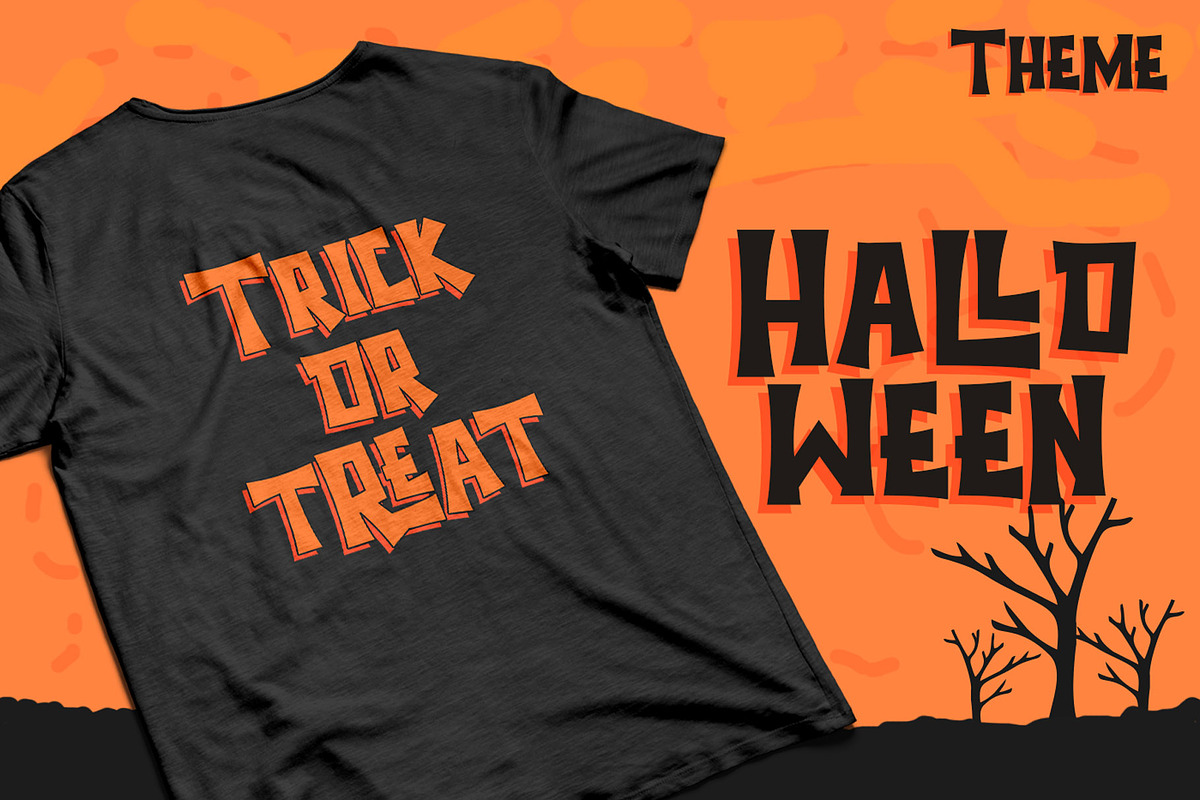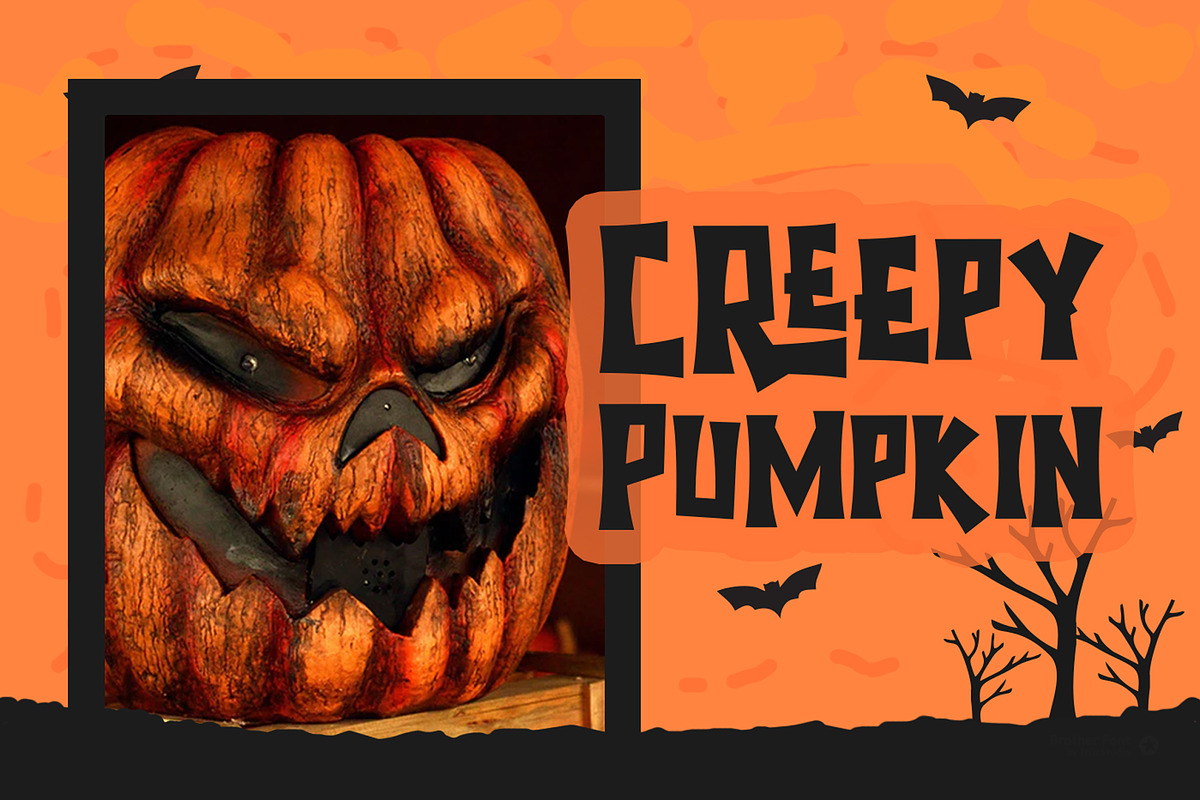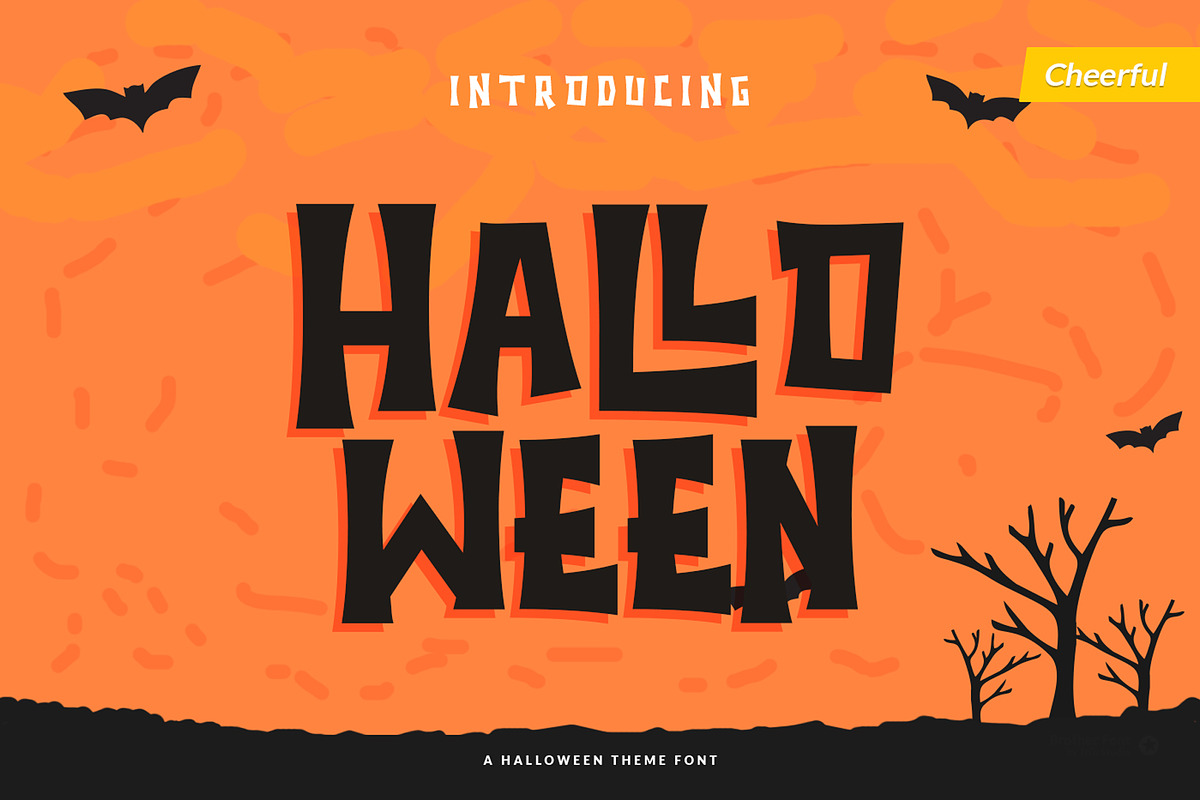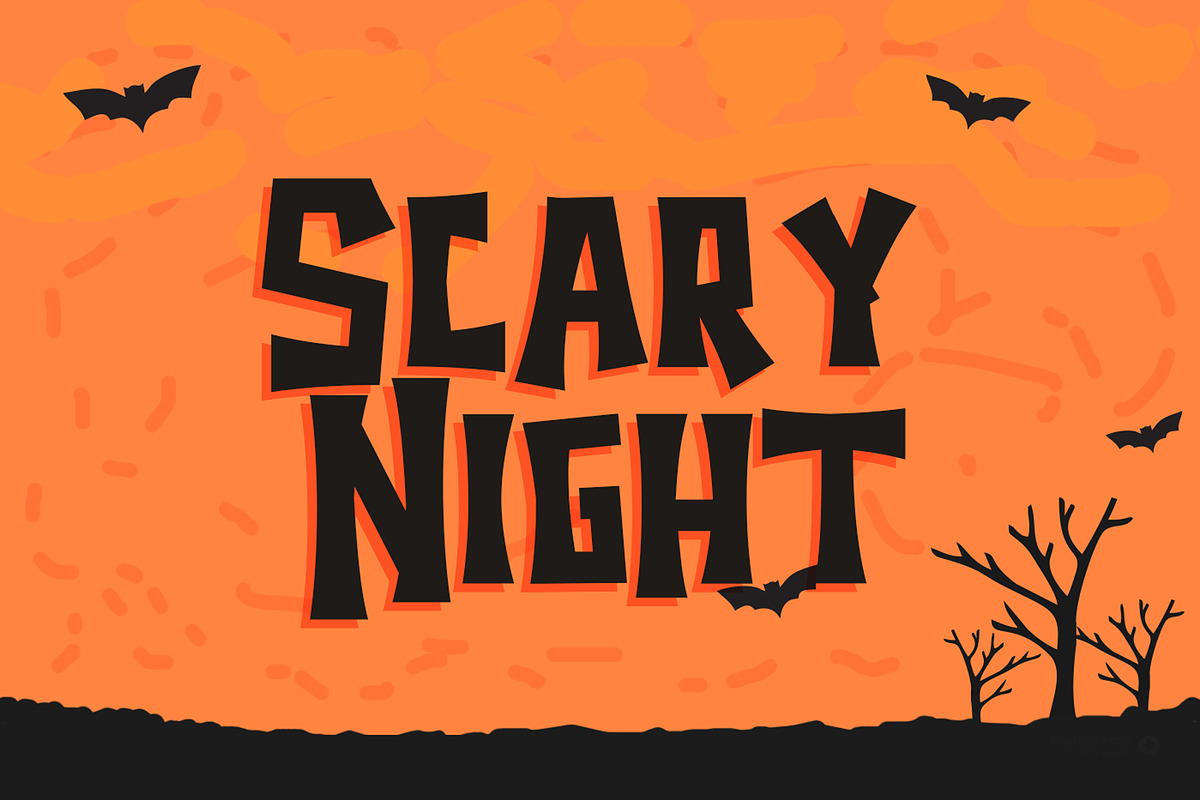
Halloween Scary Spooky Font
Halloween is a thriller horror theme, which will give you spooky feel and match with halloween theme designs
Halloween Font also Lightweight, even so contains All Standard glyphs and punctuations